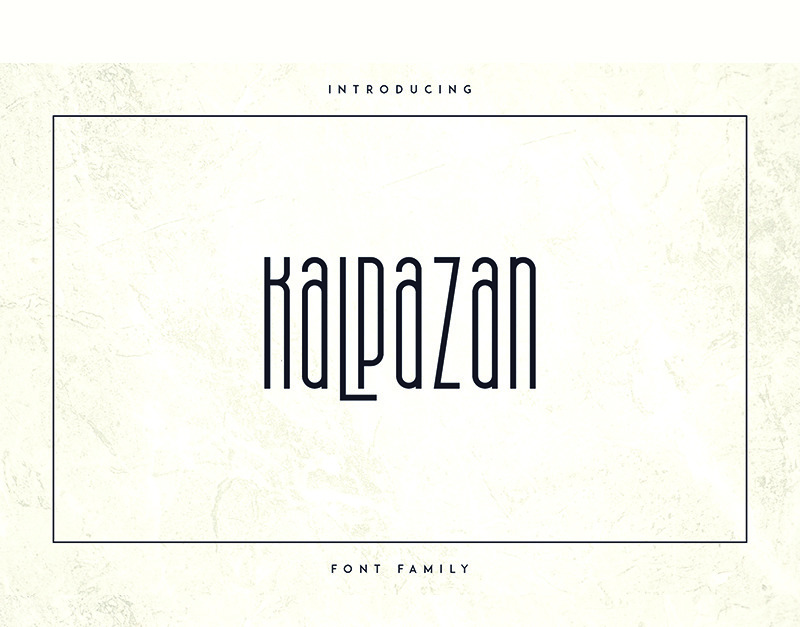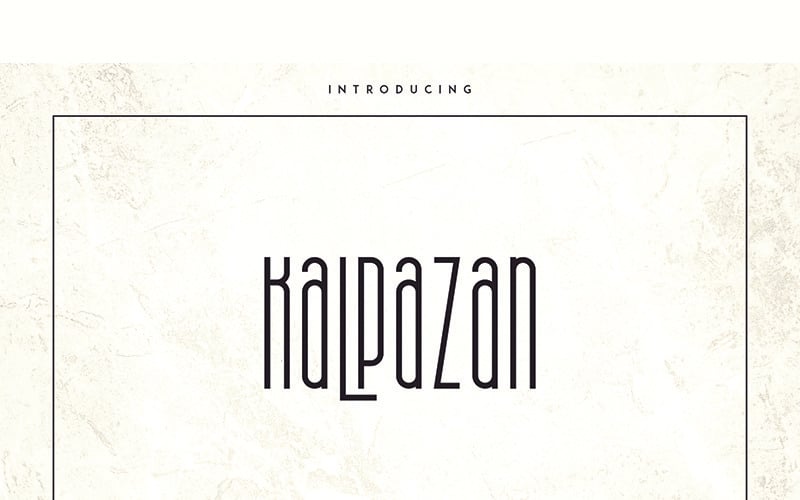
Kalpazan Font
Kalpazan is elegant high end sans serif typeface with multilingual support and light, regular, semibold, bold, extrabold fonts . It's a very versatile font that works great in large and small sizes.
Kalpazan is perfect for branding projects, home-ware designs, product packaging, wedding invitations, magazine headers - or simply as a stylish text overlay to any background image.
- Uppercase,lowercase,numeral,punctuation & Symbol
- Multilingual
- Light
- Regular
- Semibold
- Bold
- Extrabold